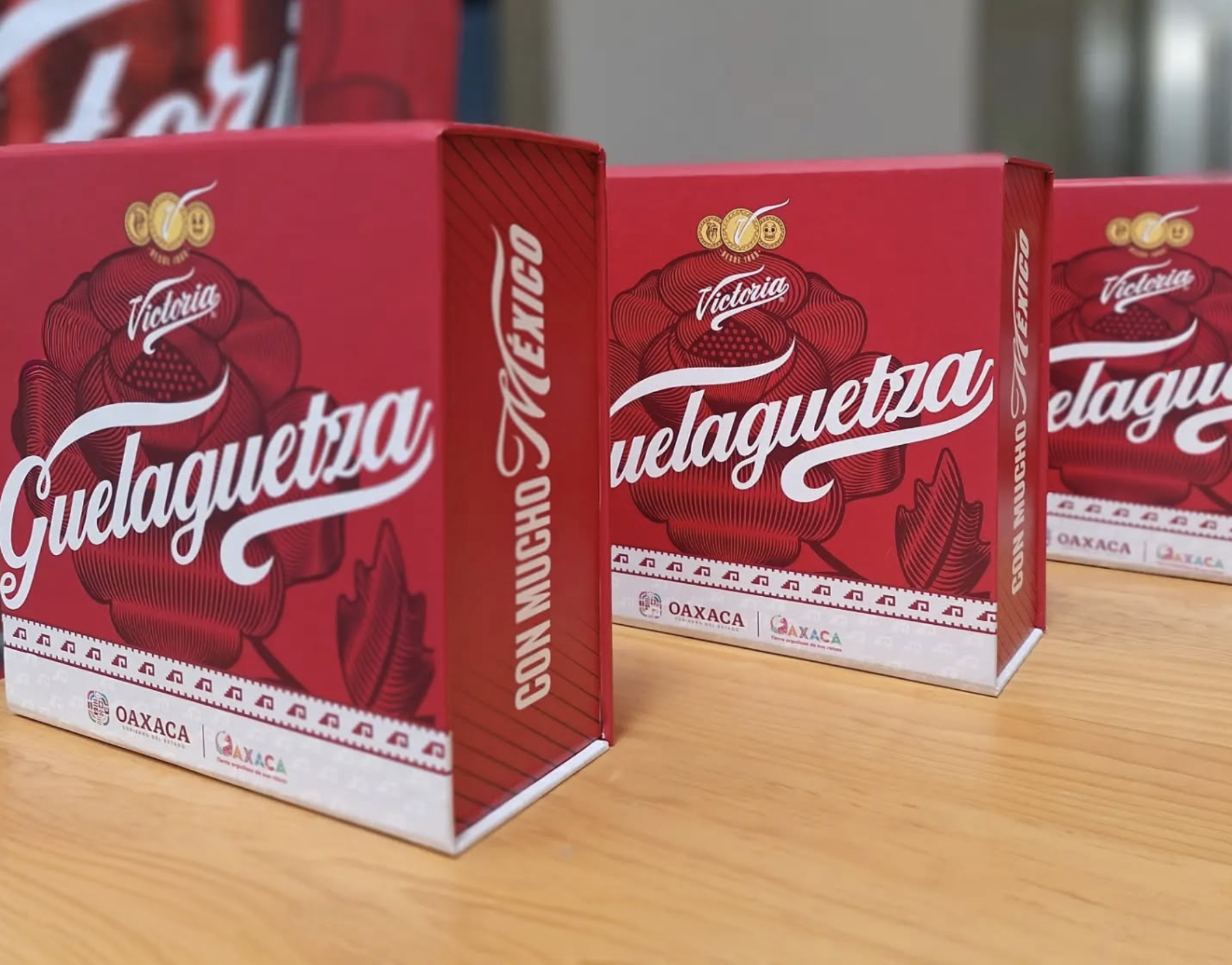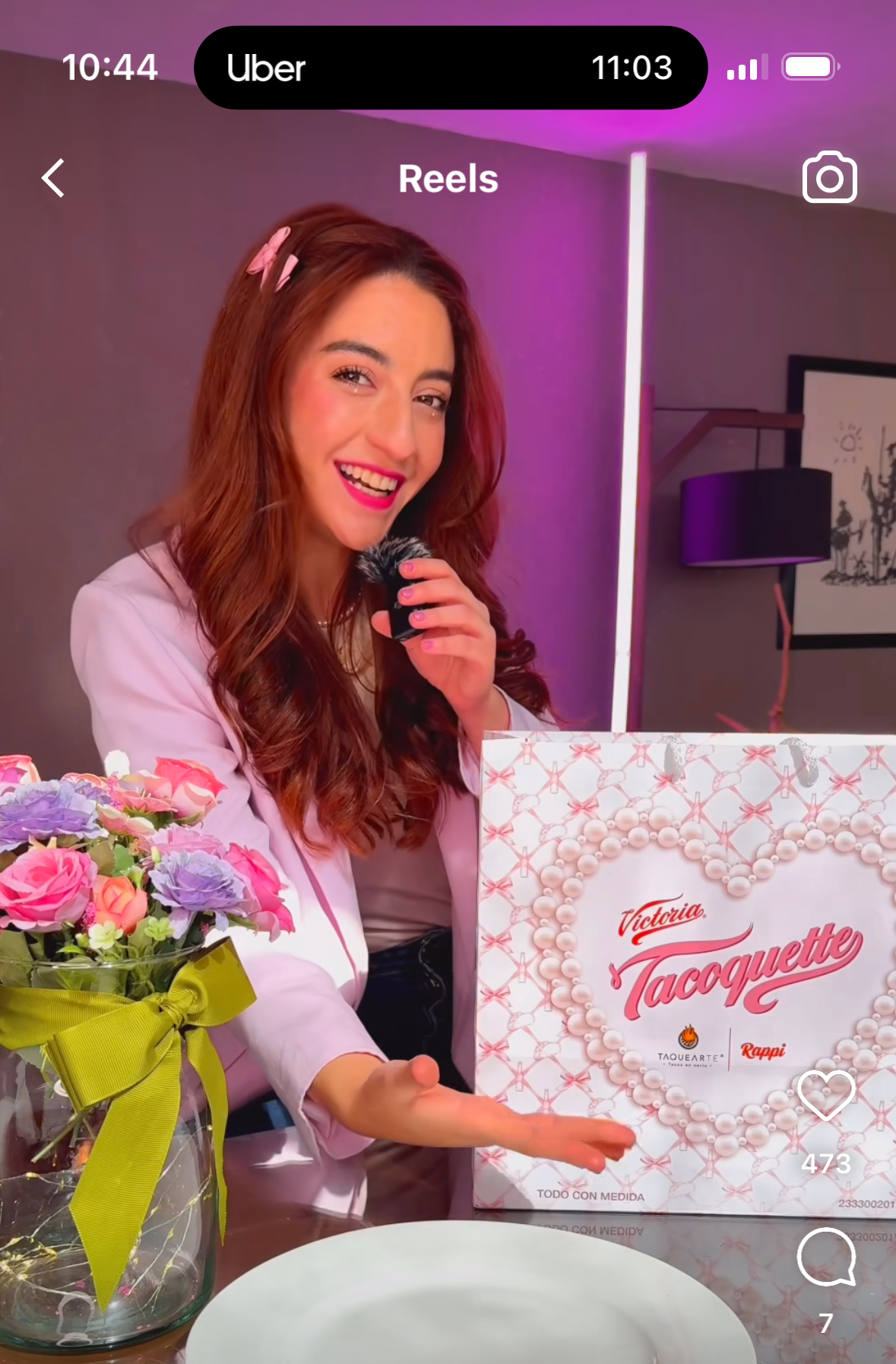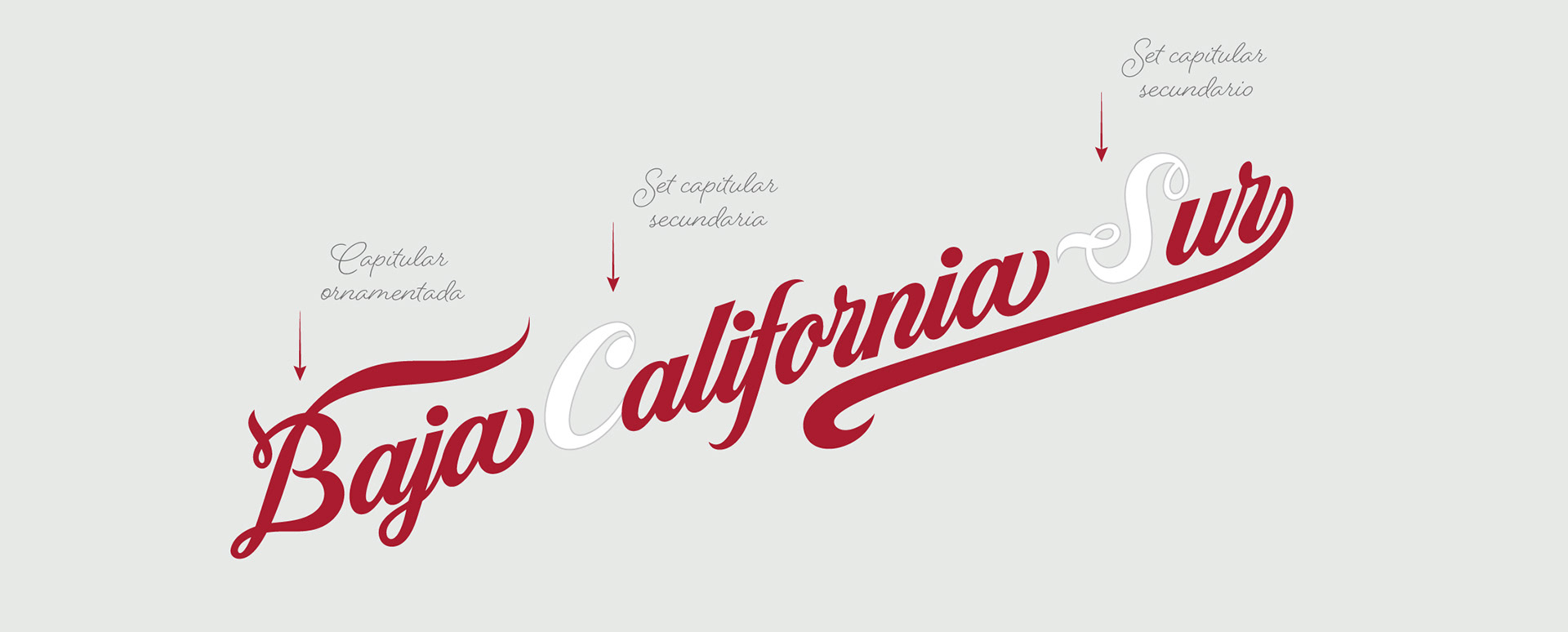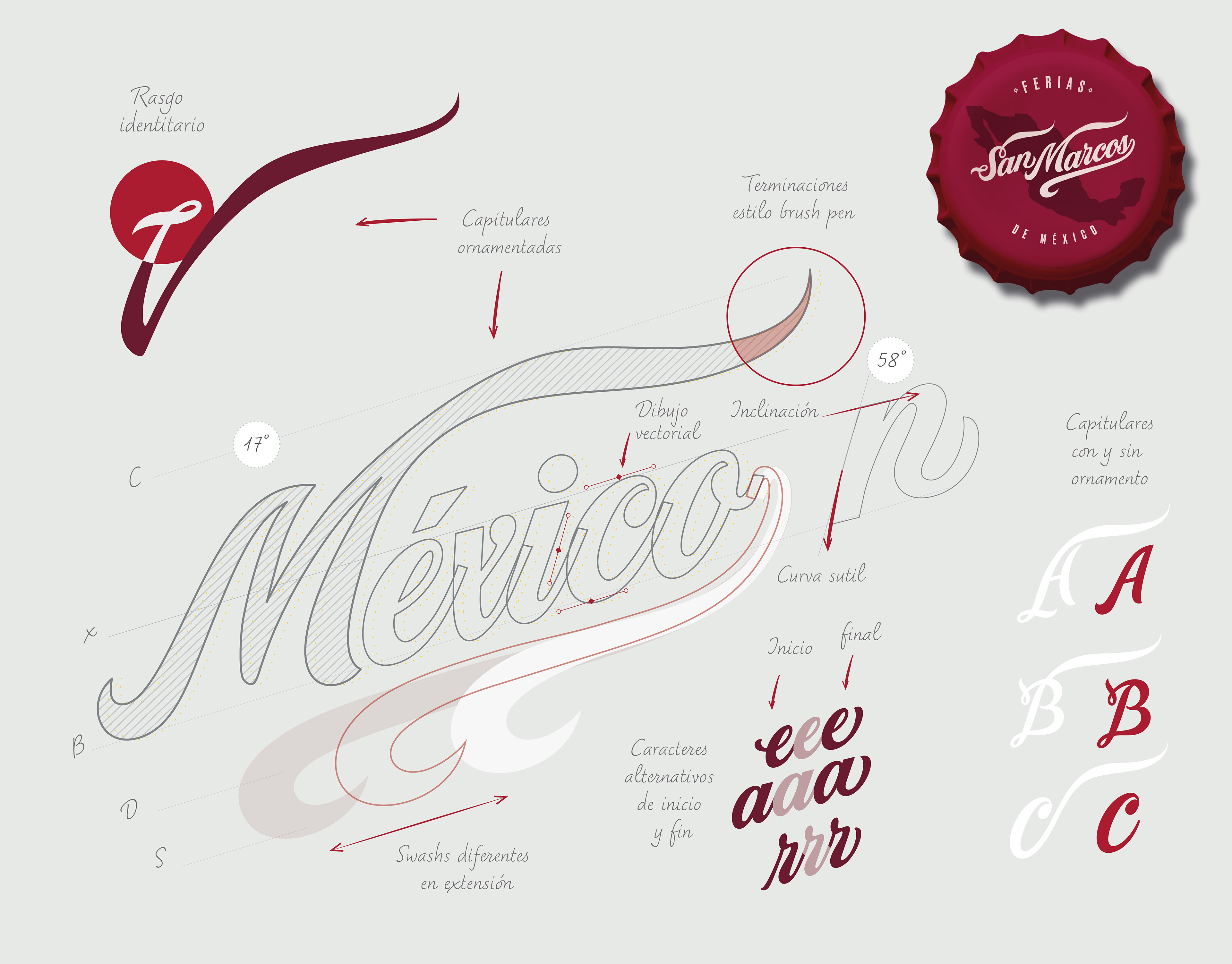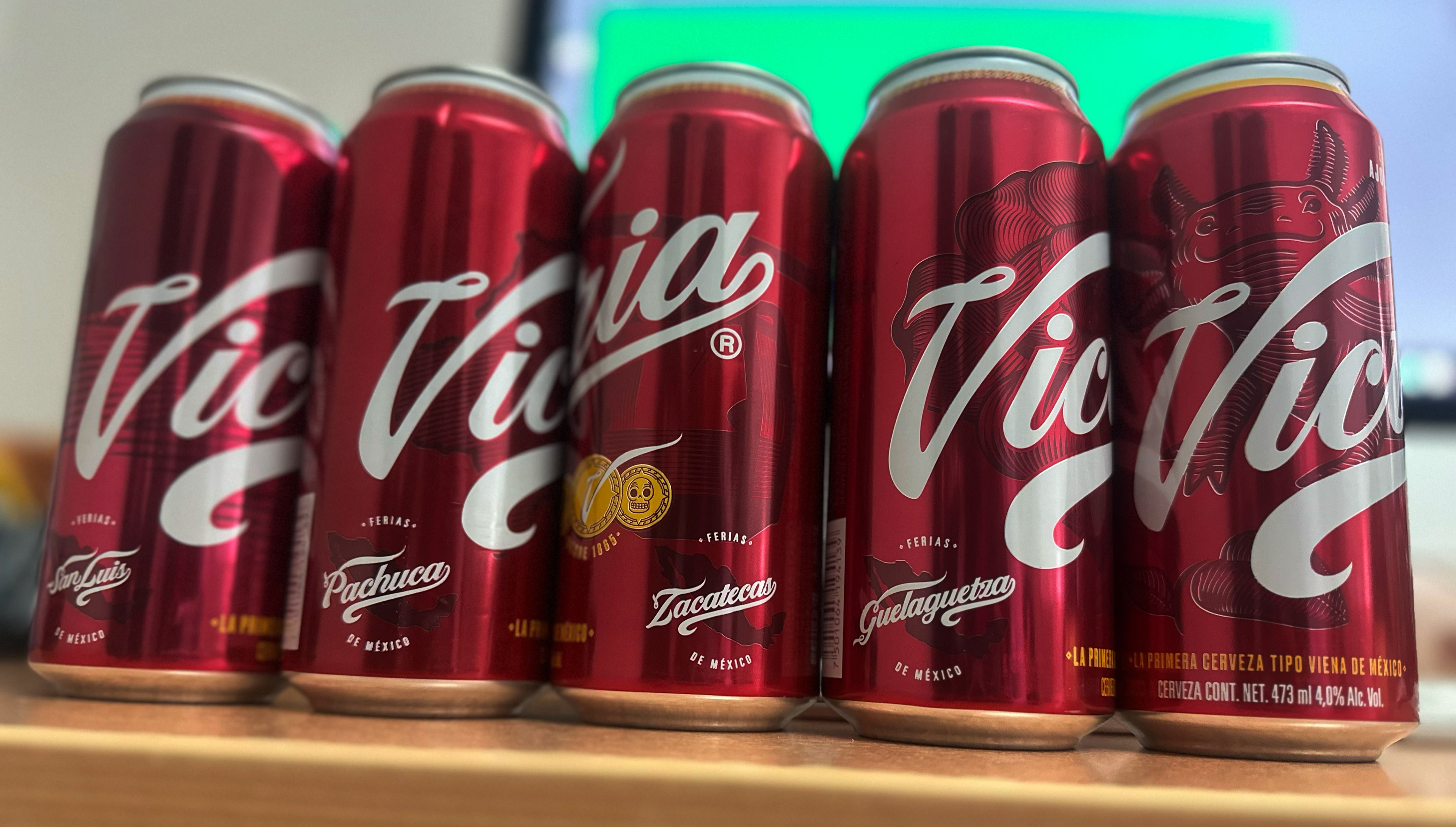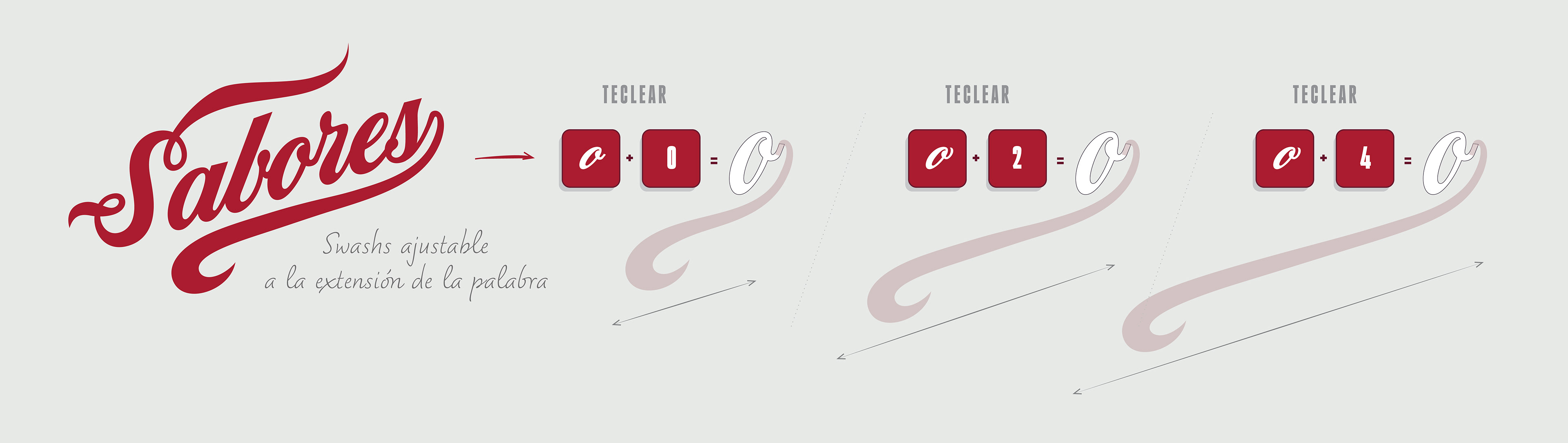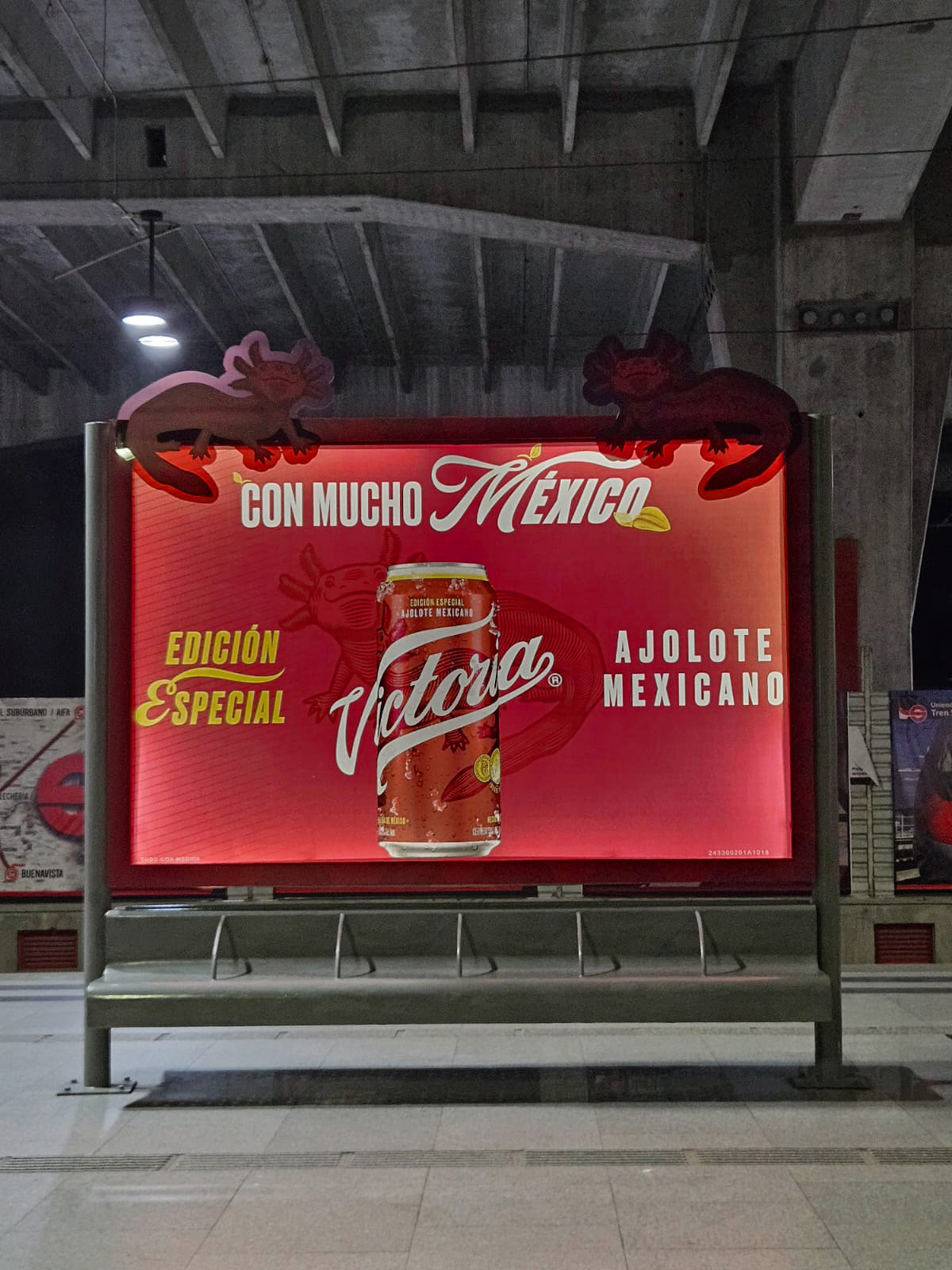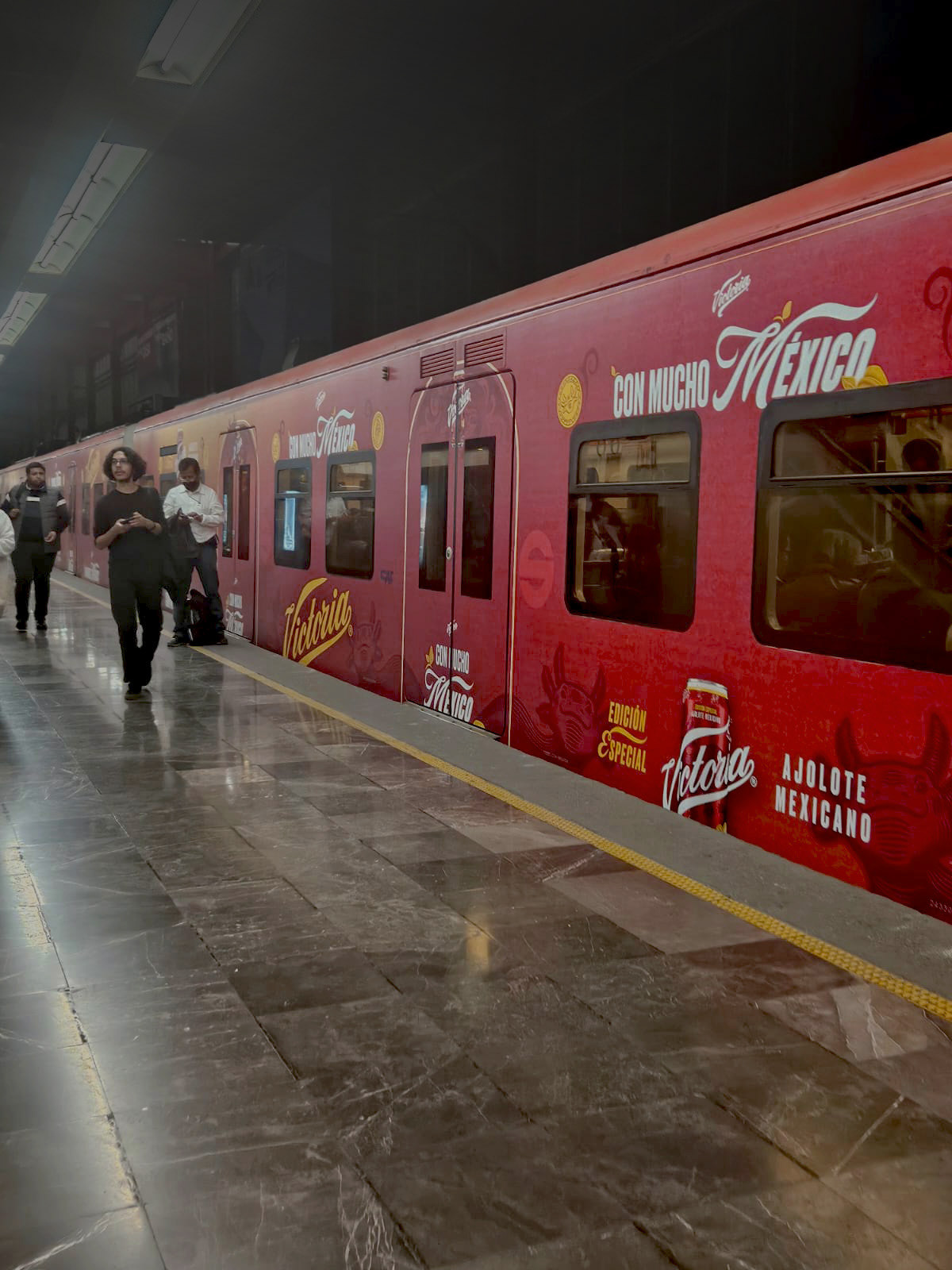
Mónica Munguía, Type Designerr ID'ologie
Victoria | Custom font
Victoria is a bespoke font developed from the brand's logotype, transforming its distinctive lettering into a flexible typographic system. Its calligraphic construction, inspired by Copperplate, combined with brush pen–influenced swash terminals and a 17° slant, gives the typeface a refined and recognizable character that remains true to the brand's visual identity.
Designed by IDologie, the custom typeface was created to optimize the composition of headlines, key messaging, and branded communications across multiple applications. Its versatility ensures consistent performance in print, digital platforms, large-format environments, and three-dimensional brand experiences.
As an exclusive typographic asset, Victoria Font strengthens visual consistency, enhances brand recognition, and reinforces memorability across every touchpoint. More than a functional design element, it serves as a strategic tool that amplifies the brand's voice while contributing to a distinctive and enduring visual identity.